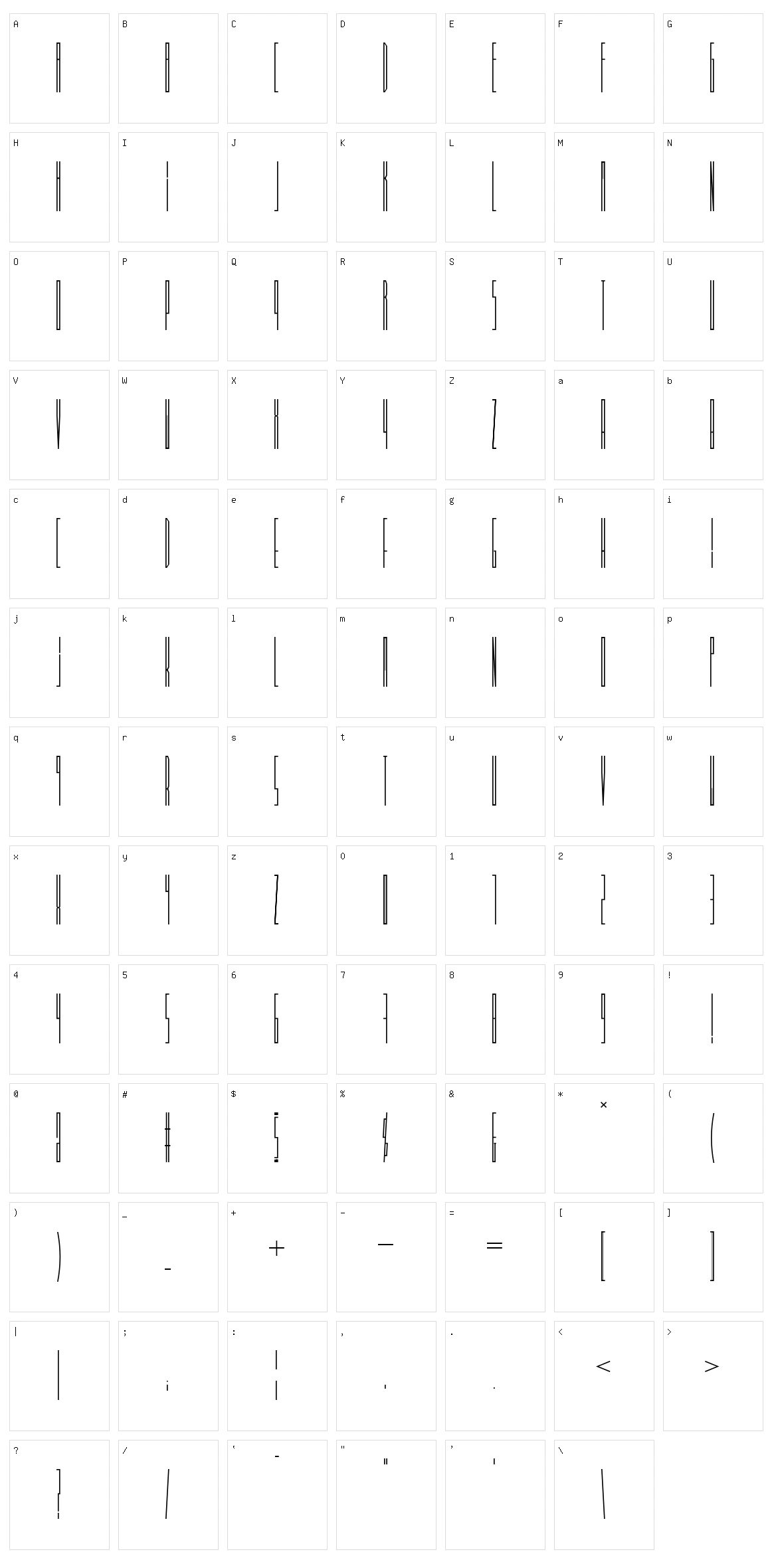
The free font iD is carefully designed by Gr81 Life, showcasing a thoughtful balance of creativity and usability and falls under the Square font style. When you download the ZIP file, it contains only 25.46 KB of font files, making it lightweight and quick to download. Please review the license details below to understand permitted usage and distribution rights. If license information is not available, we recommend using this font for personal projects only or contacting the author directly for commercial usage permissions.